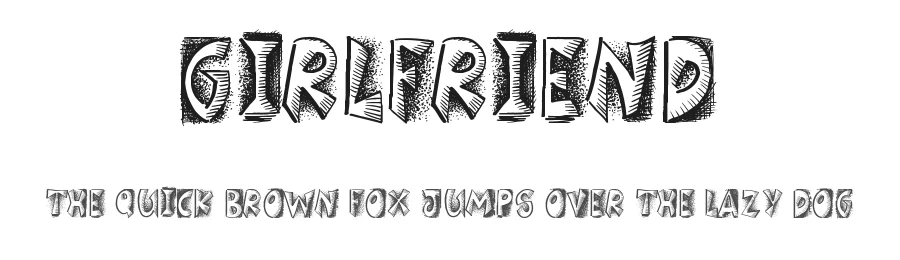
About Cartoon cookies Font
Cartoon cookies Specifications
| Font Family | Cartoon cookies Tilted |
| Full Name | Cartoon cookies Tilted |
| Glyph Count | 126 glyphs |
| PostScript Name | Cartooncookies-Tilted |
| Designer | Kong esport |
Cartoon cookies Font is a decorative font that shines as a display or heading face. Pair it with a clean sans-serif or serif font for body text β the contrast creates a clear hierarchy while the two styles stay balanced and easy to read.